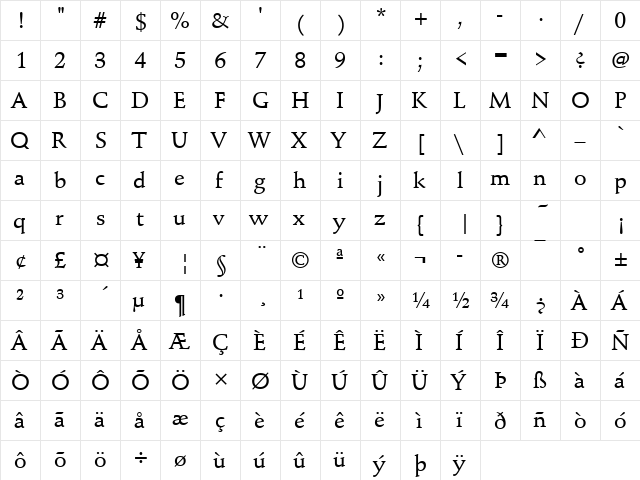
SchneidlerMedTMed Regular Font Preview
SchneidlerMedTMed Regular
Design Context for SchneidlerMedTMed Typeface
SchneidlerMedTMed is a composed and adaptable typeface that performs quietly and consistently across a wide range of design contexts.